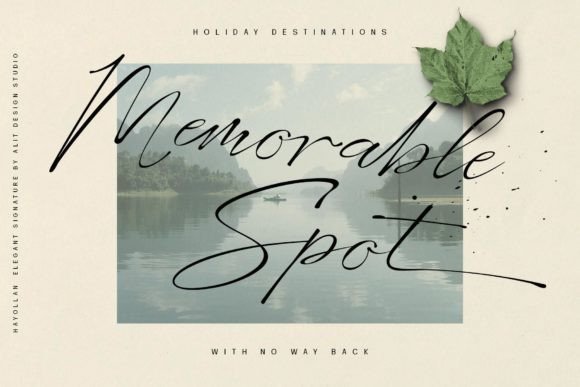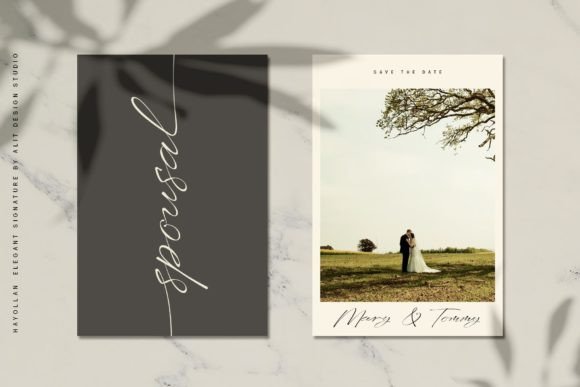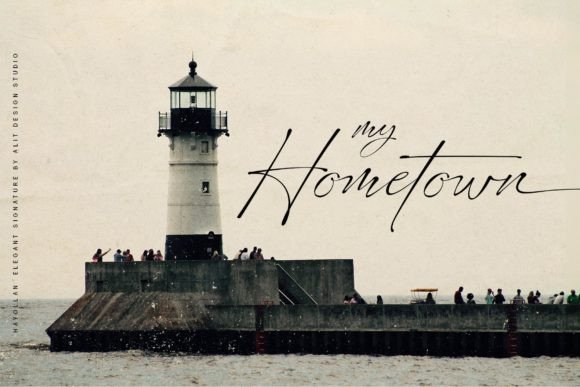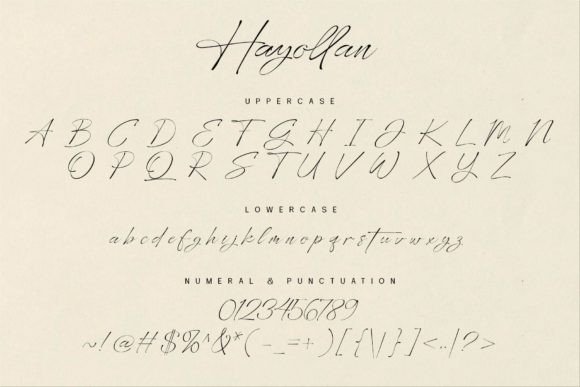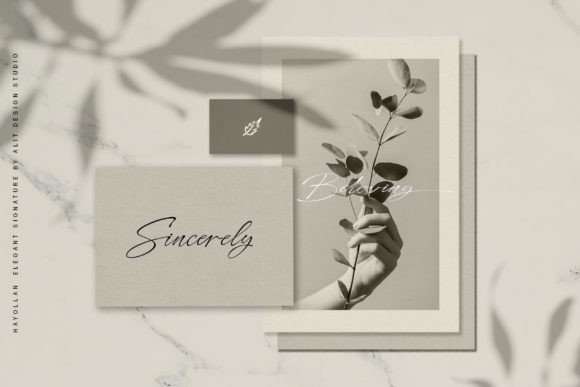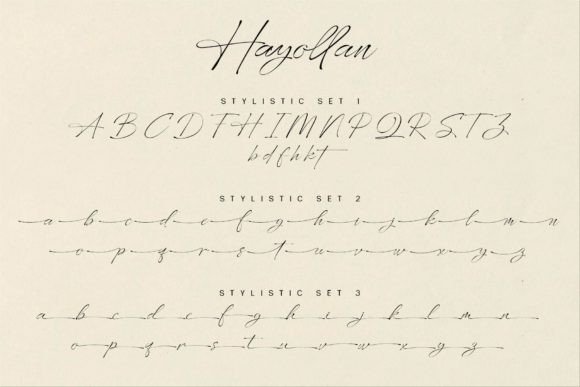
Introducing Hayollan Font: Elevate Your Designs with Elegance and Sophistication
Are you a designer or crafter looking for a font that exudes style and elegance? Look no further than Hayollan Font, a stunning handwritten script font that is sure to take your designs to the next level. With its smooth curves and refined aesthetic, Hayollan is perfect for fashion branding, editorial designs, and any project that requires a touch of sophistication.
What Makes Hayollan Font So Special?
Hayollan Font is a true gem in the world of typography. Its unique blend of elegance and playfulness makes it an ideal choice for designers who want to create stunning visual content. Here are just a few reasons why Hayollan stands out:
- Smooth Curves: Hayollan’s curves are silky smooth, giving the font a luxurious feel that’s perfect for high-end branding and designs.
- Elegant Aesthetic: The font’s refined aesthetic makes it perfect for fashion, beauty, and lifestyle brands that want to convey a sense of sophistication and style.
- PUA Encoded: Hayollan is PUA (Private Use Area) encoded, which means you can access all of the glyphs and swashes with ease. This makes it easy to customize your designs and explore the font’s endless possibilities.
Endless Possibilities with Hayollan Font
With Hayollan Font, the possibilities are endless. Whether you’re designing a logo, creating a fashion brand, or working on an editorial project, this font is sure to inspire. Here are just a few ideas to get you started:
- Fashion Branding: Use Hayollan to create stunning fashion logos, labels, and packaging that exude style and sophistication.
- Editorial Designs: Add a touch of elegance to your editorial designs, such as magazines, newspapers, and blogs, with Hayollan’s refined aesthetic.
- Stationery and Paper Crafts: Use Hayollan to create beautiful stationery, greeting cards, and paper crafts that are sure to impress.
Why Choose Hayollan Font?
With so many fonts available, why choose Hayollan? Here are just a few reasons why designers and crafters love this font:
- Unique Aesthetic: Hayollan’s unique blend of elegance and playfulness makes it stand out from other fonts.
- Ease of Use: The font’s PUA encoding makes it easy to access all of the glyphs and swashes, even for designers who are new to font editing.
- High-Quality Design: Hayollan is designed with high-quality craftsmanship in mind, ensuring that your designs look professional and polished.
Get Ready to Elevate Your Designs with Hayollan Font
If you’re ready to take your designs to the next level, look no further than Hayollan Font. With its smooth curves, elegant aesthetic, and PUA encoding, this font is sure to inspire. Whether you’re a seasoned designer or just starting out, Hayollan is the perfect choice for anyone looking to add a touch of sophistication to their work.